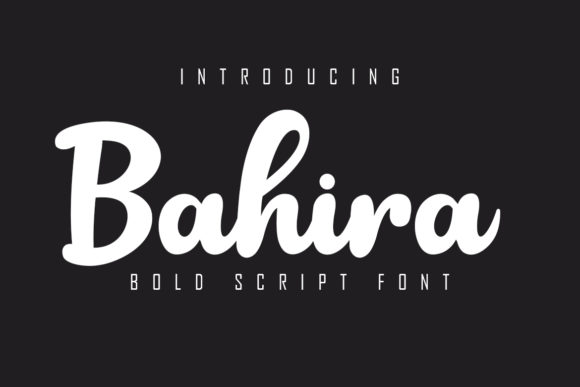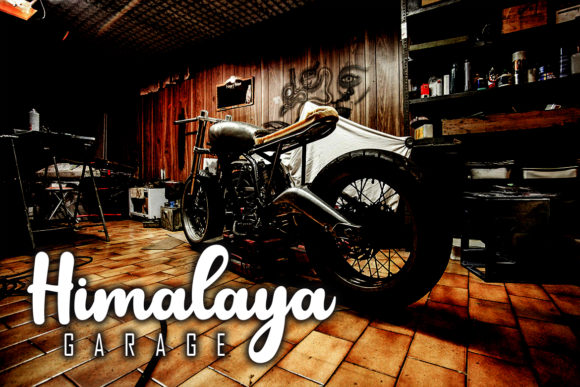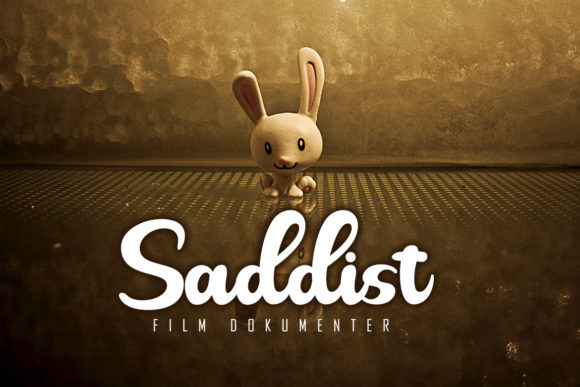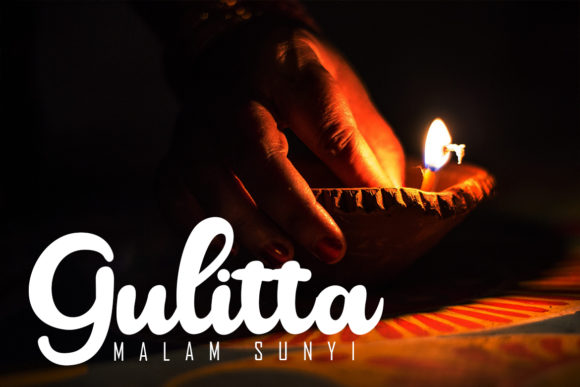
Bahira Font
About Bahira Font
Bahira is a beautiful bold script font. Its casual charm makes it appear wonderfully down-to-earth, readable and, ultimately, incredibly versatile. Bahira will look outstanding in any context, whether it’s being used on busy backgrounds or as a standalone headline!